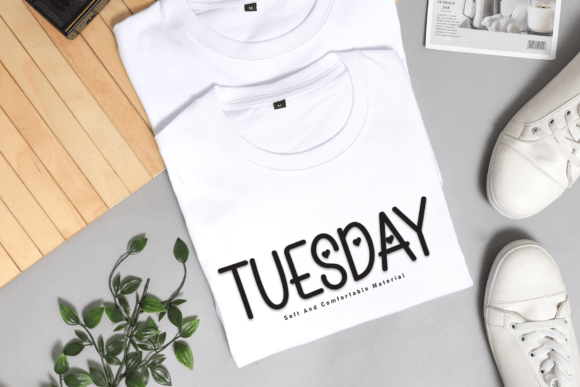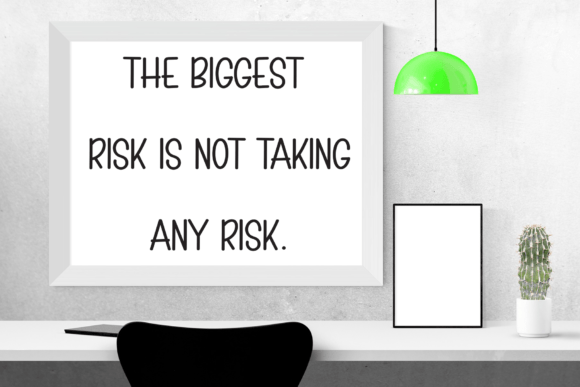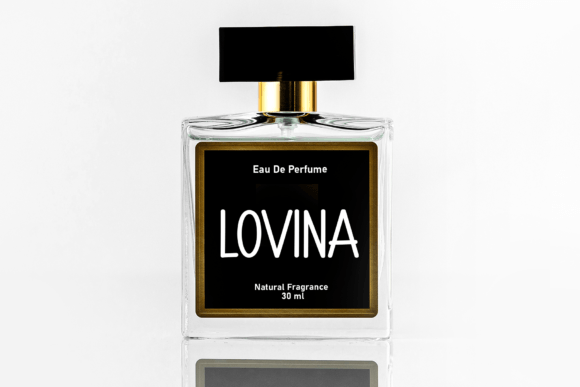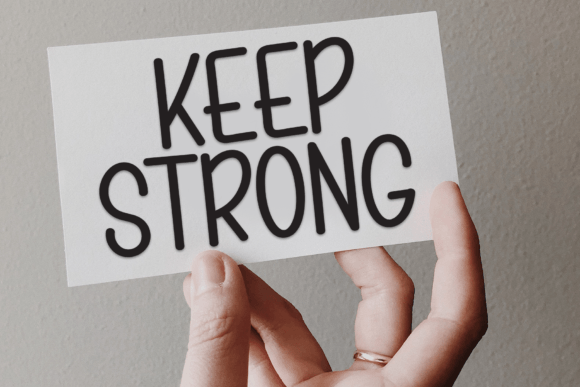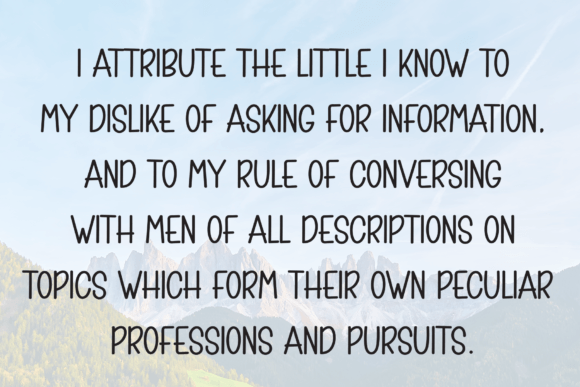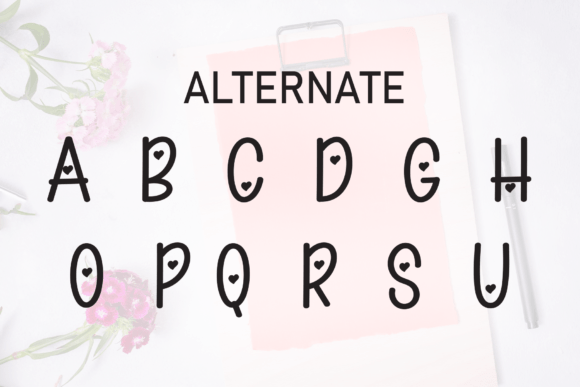
Filing Lovely Font: The Sweet and Friendly Handwritten Font for Your Design Needs
Are you a designer or crafter looking for a font that can add a personal touch to your projects? Look no further than Filing Lovely Font, a sweet and friendly handwritten font that is perfect for a wide range of designs. With its natural and unique style, Filing Lovely Font is incredibly versatile and can be used for everything from invitations and greeting cards to branding and packaging.
The Characteristics of Filing Lovely Font
Filing Lovely Font is a handwritten font that is characterized by its sweet and friendly style. The font has a natural, organic feel that makes it perfect for designs that require a personal touch. The letters are carefully crafted to have a unique and distinctive look, with subtle variations in line width and spacing that give the font a sense of movement and energy.
The Benefits of Using Filing Lovely Font
There are many benefits to using Filing Lovely Font in your designs. Here are just a few:
- Versatility: Filing Lovely Font is incredibly versatile and can be used for a wide range of designs, from formal invitations to casual greeting cards.
- Uniqueness: The font’s unique and distinctive style ensures that your designs will stand out from the crowd.
- Emotional Connection: The sweet and friendly style of Filing Lovely Font can help to create an emotional connection with your audience, making your designs more relatable and engaging.
How to Use Filing Lovely Font in Your Designs
Using Filing Lovely Font in your designs is easy. Here are a few tips to get you started:
- Pair it with Other Fonts: Filing Lovely Font looks great when paired with other fonts, such as sans serif fonts or script fonts.
- Experiment with Colors: The font’s natural style looks great in a variety of colors, from bright and bold to soft and pastel.
- Use it for Headings and Titles: Filing Lovely Font is perfect for headings and titles, where its unique style can really make an impact.
- Add it to Your Branding: Consider using Filing Lovely Font as part of your branding, where its sweet and friendly style can help to create a positive and approachable image.
Design Ideas that Use Filing Lovely Font
Filing Lovely Font is incredibly versatile and can be used for a wide range of designs. Here are a few ideas to get you started:
- Invitations: Use Filing Lovely Font to create beautiful and unique invitations for weddings, parties, and other special occasions.
- Greeting Cards: The font’s sweet and friendly style makes it perfect for greeting cards, where it can add a personal touch to your messages.
- Branding: Consider using Filing Lovely Font as part of your branding, where its unique style can help to create a positive and approachable image.
- Packaging: Filing Lovely Font can add a personal touch to your packaging, making it more attractive and engaging.
Filing Lovely Font is a sweet and friendly handwritten font that is perfect for designers and crafters who want to add a personal touch to their projects. With its natural and unique style, Filing Lovely Font is incredibly versatile and can be used for a wide range of designs. Whether you’re creating invitations, greeting cards, branding, or packaging, Filing Lovely Font is sure to make your designs stand out from the crowd.